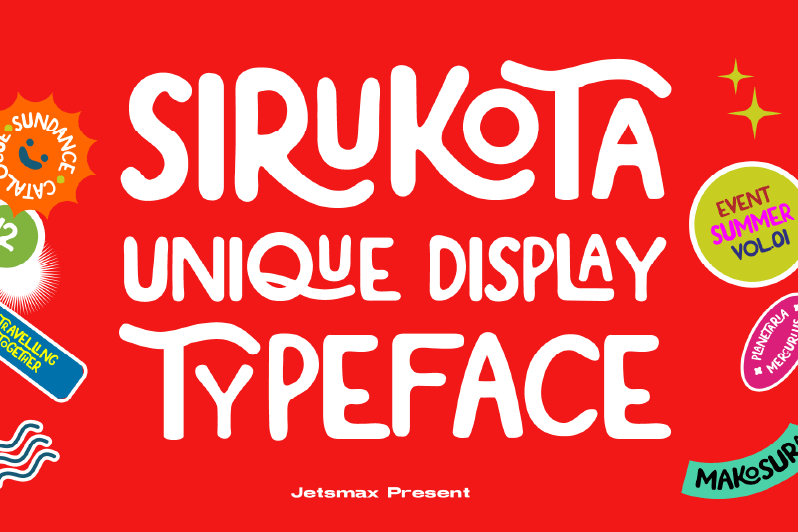
Sirukota is a unique display typeface with a lively theme. With a couple of special characters, this font will give your projects a heart and soul. Sirukota Font is suitable for variety of branding projects, logos, creative designs, social media posts, advertisements, and so much more. Show them how unique you are with Sirukota! NOTE: By installing or using this font, you are agree to the Product Usage Agreement: � This demo font already Full Version and ONLY for PERSONAL USE. NO COMMERCIAL USE ALLOWED! � Here is the link to purchase commercial license : https://jetsmax.com/sirukota/ � For Corporate use you have to purchase Corporate license � If you need a custom license please contact us at : foundry@jetsmax.com � Any donation are very appreciated. Paypal account for donation : https://paypal.me/KhairilAnwar Happy Creation! ----------------------------------------------- FOR SOME FREEBIES CHECK OUT >>> www.jetsmax.com ----------------------------------------------- FOLLOW US HERE: Shop: www.jetsmax.com Instagram: www.instagram.com/jetsmax.id More... |